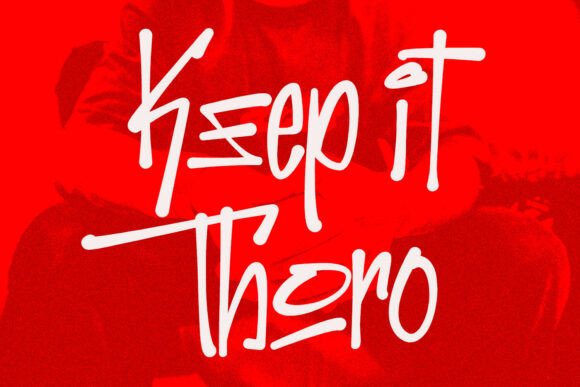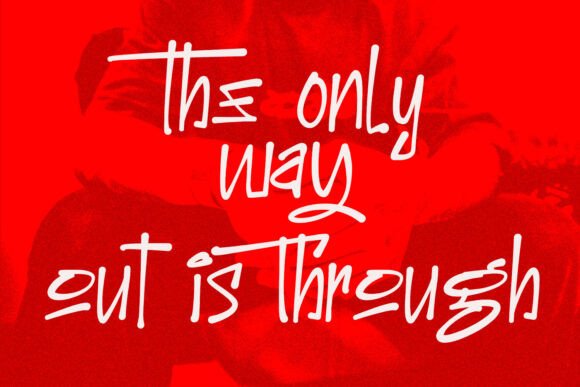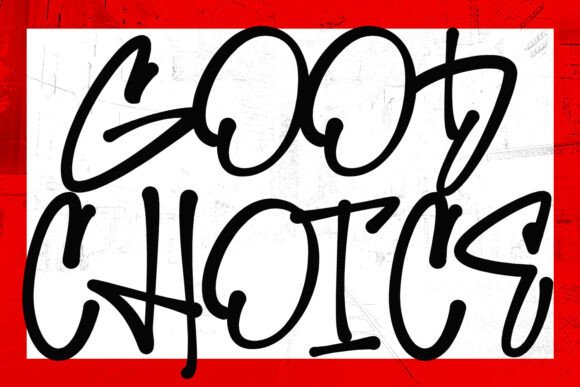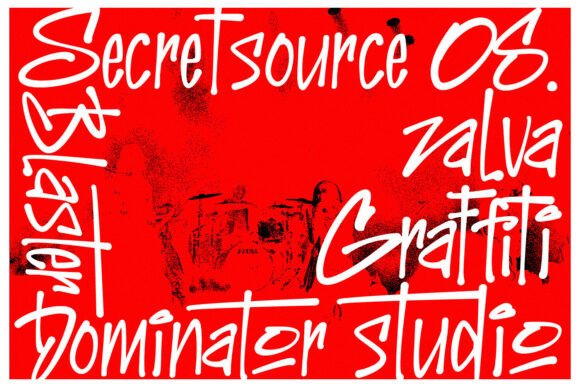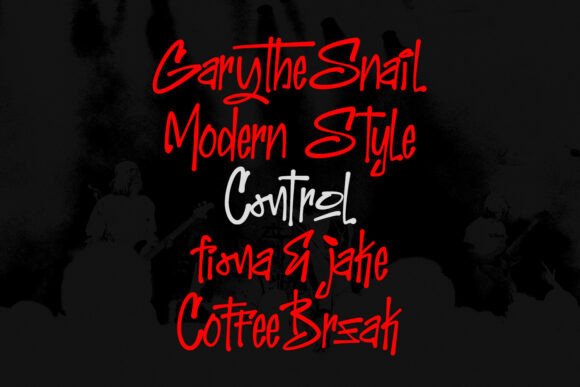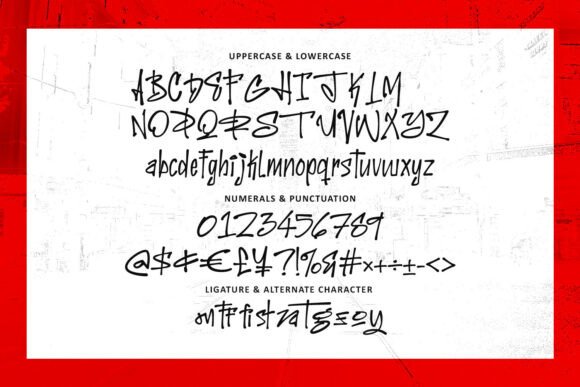
Introduction to Rony Tegon Font
Do you remember that moment when you stumbled upon the perfect font, and your creative juices started flowing? For designers, this is a familiar sensation that can elevate a project from ordinary to extraordinary. And that’s exactly what the Rony Tegon Font can do – add a high-quality, urban touch to your designs.
Whether you’re working on a free download or a paid project, Rony Tegon Font is a valuable design resource that will help you stand out from the crowd. With its authentic hand-drawn details and transparent background, this font is perfect for creative projects that demand attention and a distinctive urban edge. From captivating headlines to electrifying merchandise and social media graphics, Rony Tegon Font is the perfect tool to unleash your creativity and make a statement.
So, are you ready to break the mold and let your designs shout out loud with Rony Tegon Font? In this article, we’ll delve into the world of this vibrant and dynamic graffiti font and explore its many uses and benefits for designers.
Key Features of Rony Tegon Font
- High-quality design suitable for creative projects, offering a unique and stylish look.
- Transparent background, making it easy to customize and integrate into various design resources.
- Supports a range of languages, including Latin-based alphabets, making it a versatile design resource.
- Resolution: 300 DPI, ensuring crisp and clear display in high-resolution designs.
- Unique characteristics, including an elegant and modern design aesthetic, making it perfect for branding and marketing materials.
Honest Review: Rony Tegon Font
I recently came across the Rony Tegon Font, and I must say it’s a unique addition to my design resources. This high-quality font has a transparent background, making it a great choice for creative projects that require a clean and modern look.
Here are some of the things I like about the Rony Tegon Font: ✨
- Great for creating digital art, graphics, and even web design elements
- Unique and quirky style that adds a touch of personality to any design
However, there are some limitations to consider: ⚠️
- The font may not be suitable for projects that require a more formal or traditional look
- The transparent background may not work well with certain design elements or color schemes
Overall, I think the Rony Tegon Font is a great design resource for creative projects. It’s a high-quality font that’s easy to use and customize, and it’s a great choice for designers who want to add a touch of personality to their work.
To get the most out of the Rony Tegon Font, use it for creative projects that require a unique and eye-catching style. Some common use cases include:
- Brand identity
Can I use the Rony Tegon Font with a transparent background?
Yes, the Rony Tegon Font can be used with a transparent background. Since it’s a high-quality font with a clear design, it can be easily layered over other design elements or used with a transparent background to create a unique visual effect. However, keep in mind that the font’s transparency may not work seamlessly with all design software or operating systems, so it’s essential to test the font in your specific design environment before finalizing your project.